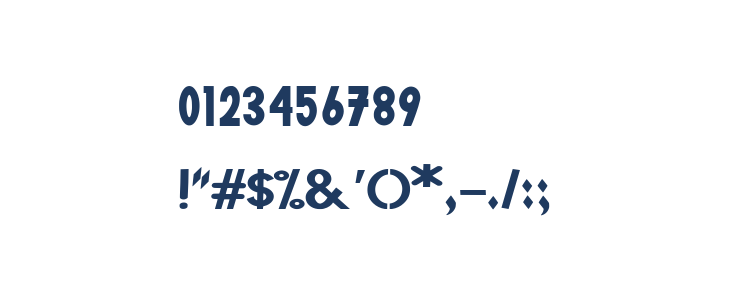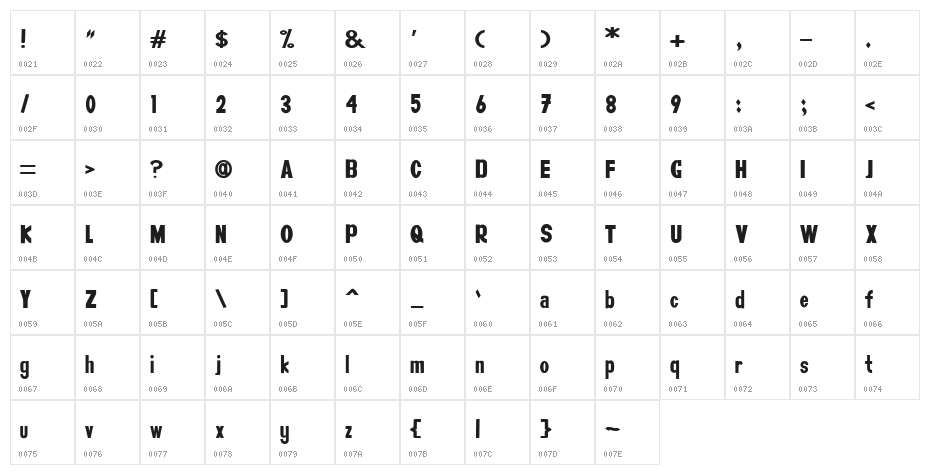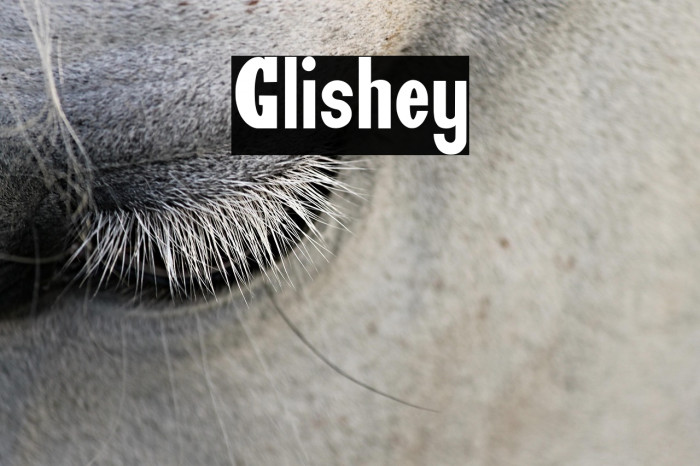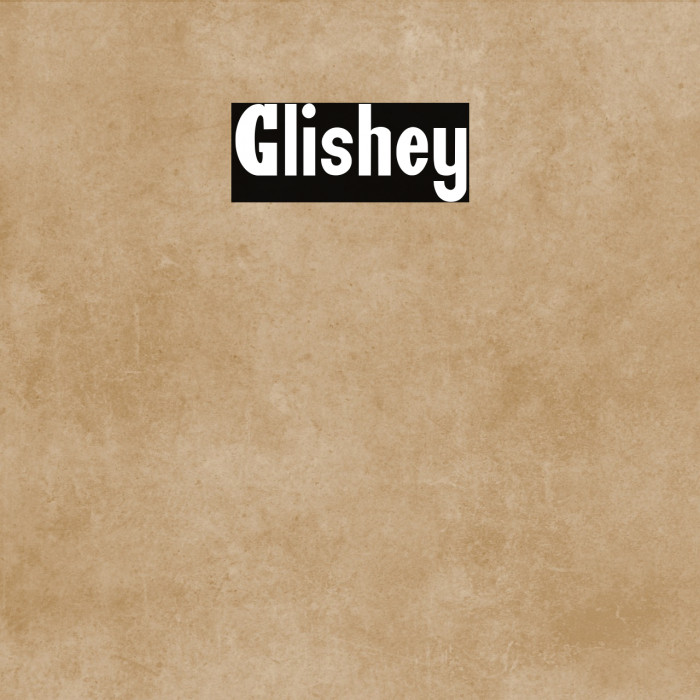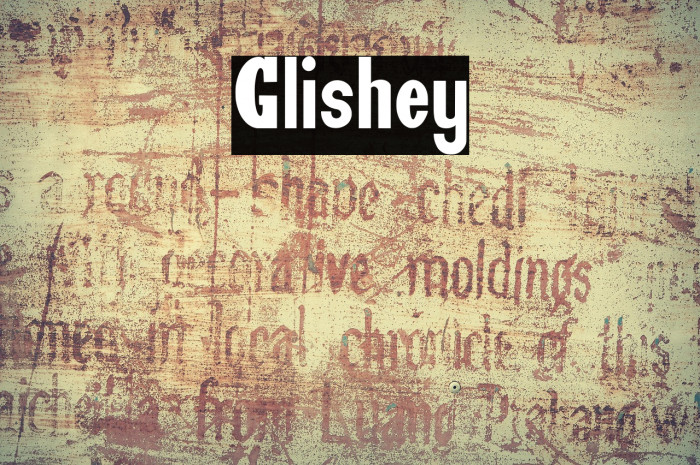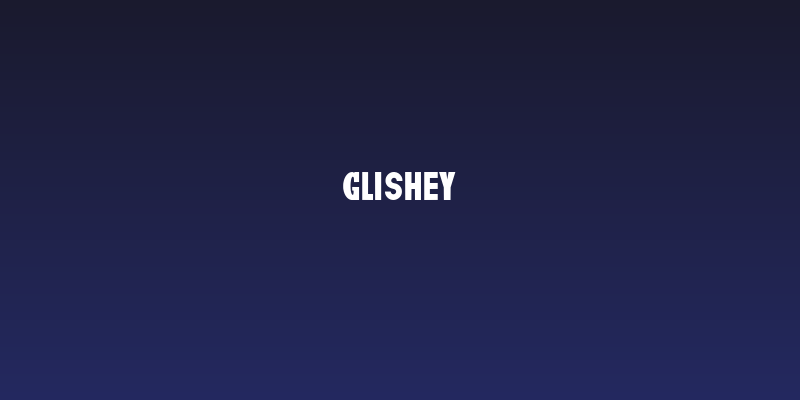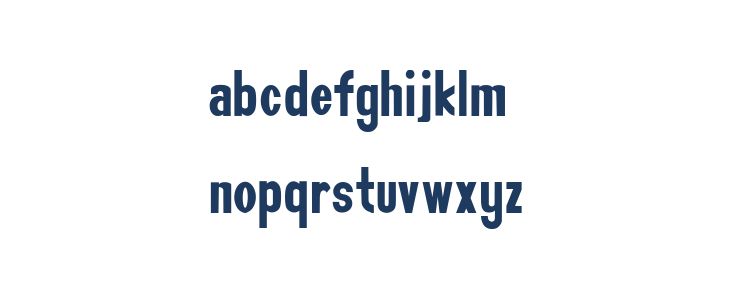
Glishey Font
Glishey Description
This font features a bold and impactful design with thick, uniform strokes that create a strong presence on the page. The uppercase letters are particularly robust, with a slightly condensed appearance that enhances their boldness. The lowercase letters maintain the same thickness, providing a cohesive look across different text sizes. The numerals are equally bold, ensuring they stand out in any context. Special characters are designed with the same attention to detail, making them easily recognizable and consistent with the overall style. The font's design is modern and assertive, making it suitable for projects that require a strong visual impact.
| Proposed Projects | Ideal for headlines, posters, branding, and any design requiring a strong visual impact. |